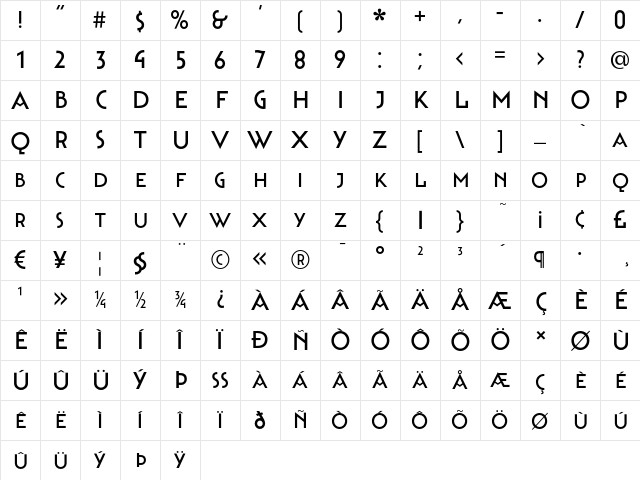
Bahnhof Regular Regular
Foundry: Frantisek Storm, stormtype.com
Design Context for Bahnhof Regular
Bahnhof Regular is a composed and adaptable typeface that performs quietly and consistently across a wide range of design contexts.
Who designed the Bahnhof Regular font?
This font was published by Frantisek Storm, stormtype.com. Check the technical specs section for copyright and designer details.